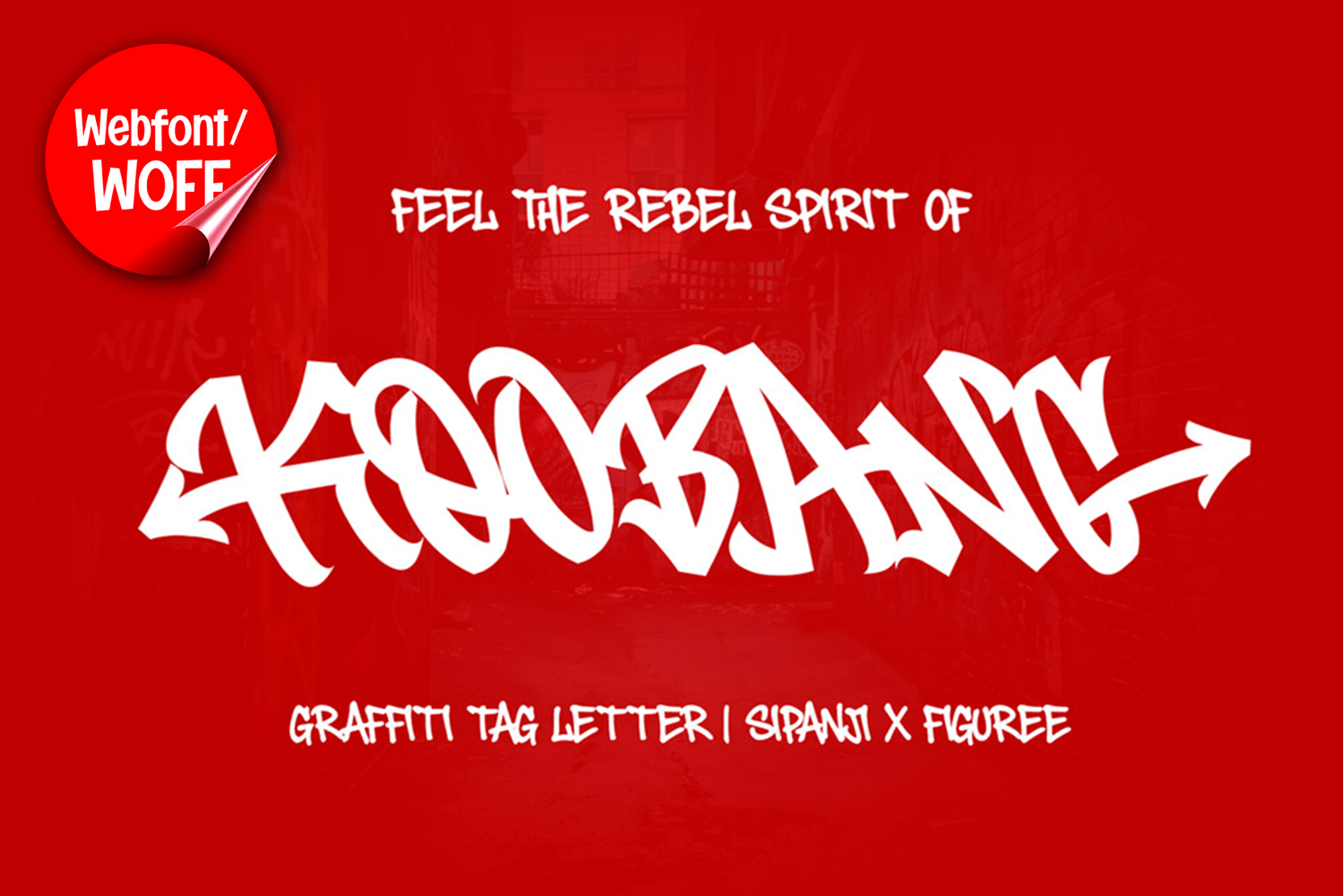
Koobang | Monoline Arrow Graffiti Tags Webfont for Urban use
Koobang is a monoline arrow graffiti tags webfont designed to bring authentic street culture and dynamic urban energy into modern website design. Inspired by graffiti tag styles, freestyle marker lettering, and directional arrow elements commonly found in street art, this font features smooth monoline strokes combined with sharp arrow-inspired details. The result is a bold and expressive typographic style that works perfectly for creative and urban-focused digital projects.
Koobang includes a complete set of uppercase characters designed with monoline graffiti tag aesthetics. The letterforms combine fluid handwritten motion with arrow-inspired accents, creating a sense of speed, movement, and street-style expression. These characteristics make it ideal for headlines, banners, hero sections, promotional graphics, and featured content where a strong urban identity is needed.
In addition to letters, the font includes numbers and punctuation, allowing flexible usage across various parts of a website. It works well for streetwear branding, music platforms, gaming websites, event promotions, and creative portfolios. Each character maintains a consistent graffiti tag style, ensuring a cohesive and unified visual appearance throughout the design.
With multilingual support, Koobang includes a wide range of accented characters, making it suitable for international websites and global audiences. This ensures that content remains clear and visually consistent across different languages while preserving the authentic graffiti aesthetic.
The monoline arrow graffiti style of Koobang makes it especially suitable for urban-themed websites, hip hop culture projects, youth-oriented branding, and digital campaigns that require an energetic and expressive visual approach. Its flowing strokes and directional details create a modern street-art atmosphere that helps websites stand out in visually competitive environments.
Despite its stylized and expressive appearance, Koobang is designed with readability in mind. The spacing and proportions are carefully balanced to ensure clarity, particularly in display sizes. This allows designers to use the font effectively for impactful headings and short content without sacrificing usability.
Koobang is a webfont that combines graffiti tagging aesthetics with clean monoline structure and modern digital performance. Its smooth lines, arrow-inspired details, and urban character create a distinctive typographic presence that enhances website design. For projects that require a creative, edgy, and visually engaging graffiti font, Koobang offers a versatile and powerful solution.